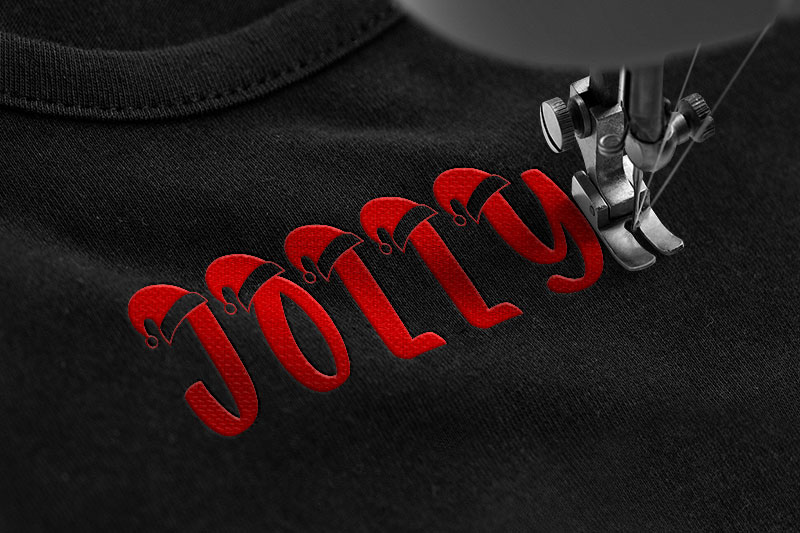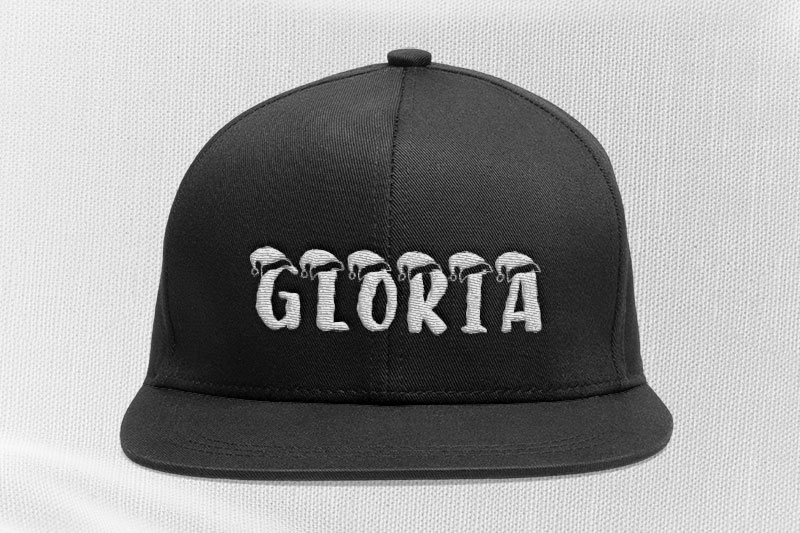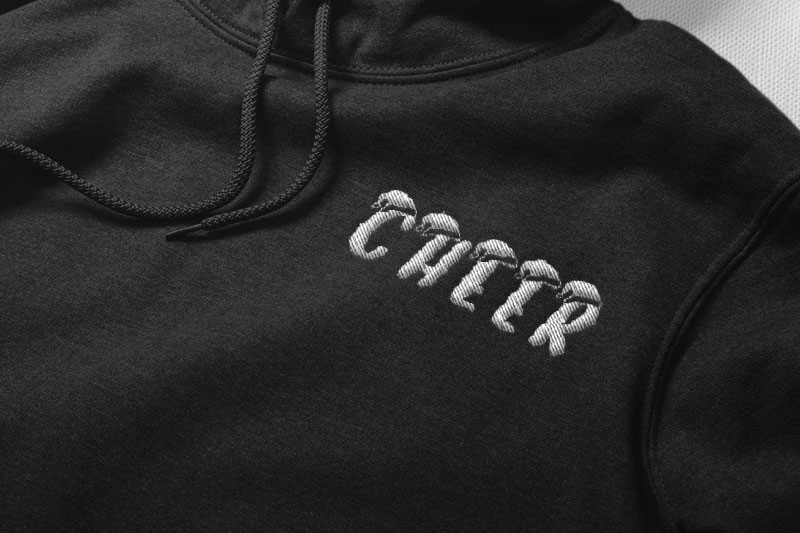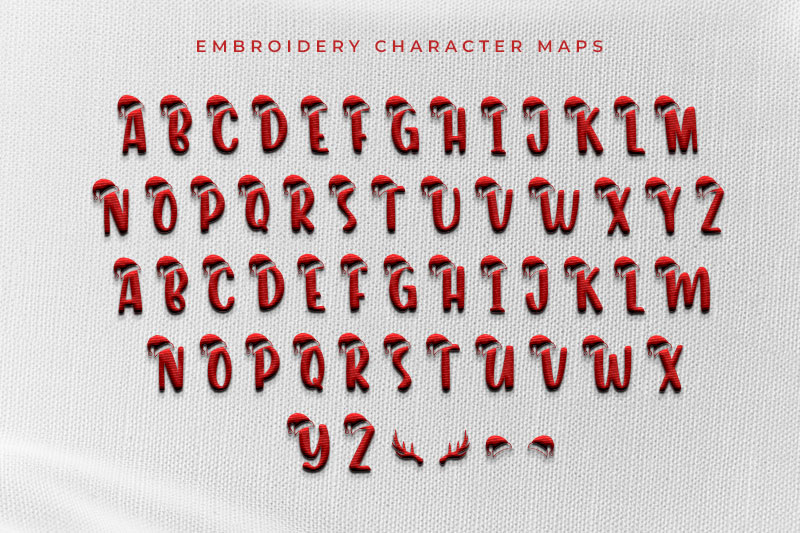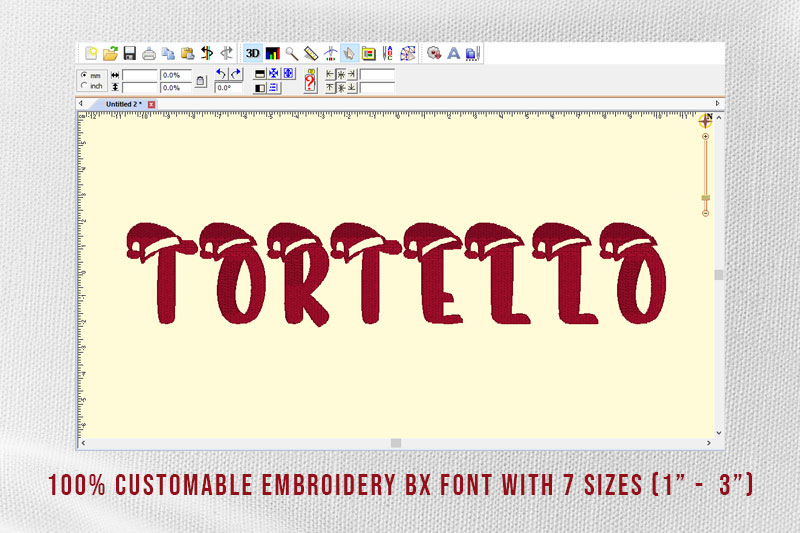
Kong font is back with a new type of embroidery font. Tortello Embroidery Christmas font was created to add to the variety of options available to Embroidery font users looking for a Christmas font to complement the celebrations. Of course, this is an advantage for you because the font is very unique and not monotonous.
Tortello Embroidery Christmas font has the characteristic of being unique and simple at the same time. This font is clean without any excessive curvature. It has the addition of a Christmas hat accent at the top end of the letters. Despite having additional accessories, the Tortello is legible font.
Given how interesting the characteristics are created, Tortello embroidered Christmas font is one of the best Christmas fonts when used on Christmas t-shirts, hats, hoodies, and sweaters. In addition, this font is suitable for application as Christmas celebration decorations such as banners and posters. Font Kong provides Embroidery font for digital and print use. Both of them will not eliminate the beauty and aesthetic elements evoked by Tortello embroidery Christmas font. The impression of this font will shine even more when combined with Christmas colors such as red, green, yellow, and gold.